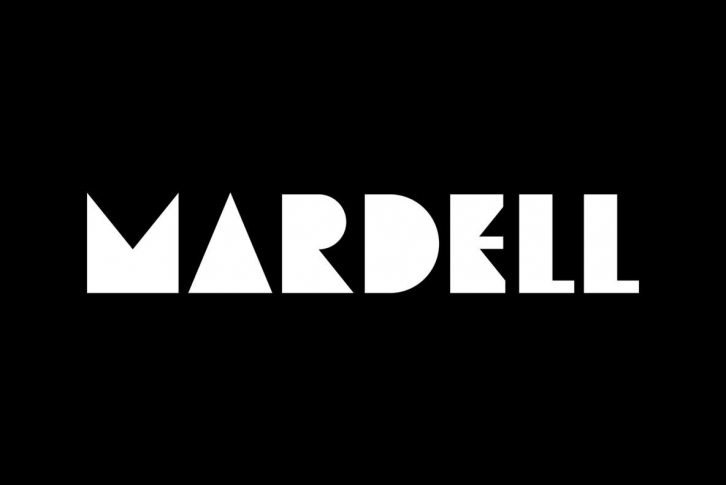
The Hamilton Wood Type & Printing Museum staff is honored to partner with New York-based graphic designer Louise Fili on her first font release project. The new font, “Mardell,†is named for Hamilton retiree and wood type cutter Mardell Doubek. This is the fourth font to be cut for the museum as part of the Wood Type Legacy Project. "The bold, lively angularity of Italian futurist letterforms made it a natural choice for wood type.†says Fili. This digital version presents Fili’s wood type design for use in web and print applications.